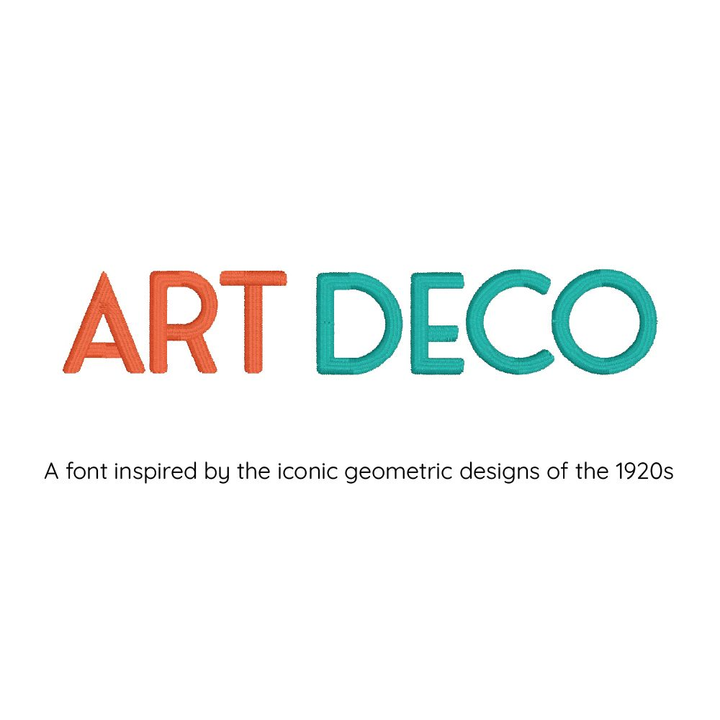
Art Deco Digital Font
Experience the elegance and sophistication of a bygone era with our stunning Art Deco digital embroidery font. This exquisite typeface, inspired by the lavish design movement of the 1920s and 1930s, brings a touch of vintage glamour to your embroidery projects. With its intricate geometric shapes and bold, symmetrical patterns, the Art Deco font will make your creations stand out like never before.
Perfect for monograms, fashion accessories, home décor, and more, this timeless font offers endless possibilities for personalization and creativity. Elevate your embroidery work to new heights and captivate your audience with the luxurious charm of the Art Deco digital embroidery font. Make every stitch count and let your imagination soar with this captivating design. Unleash your inner Gatsby and create an era-defining masterpiece today!
Included: Uppercase Letters, 14 Punctuation, Numbers
Stitch Type: Satin Stitch & Split Satin Stitch